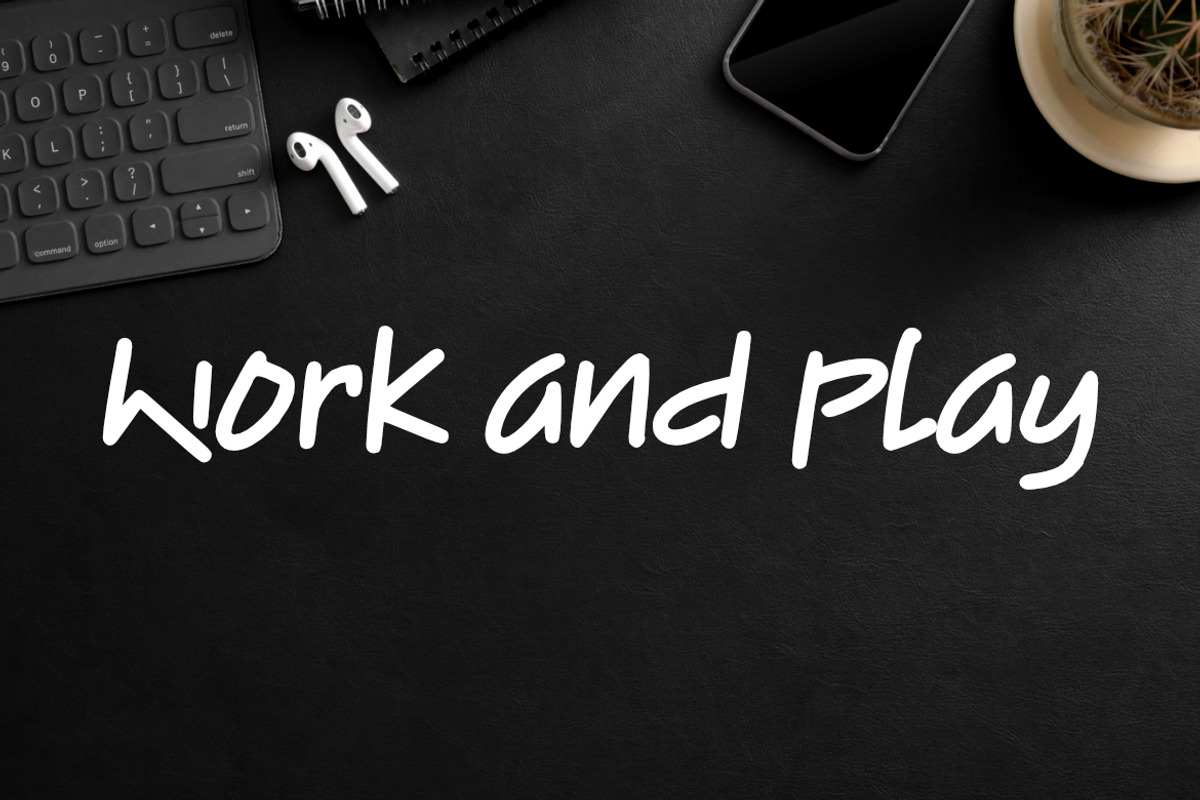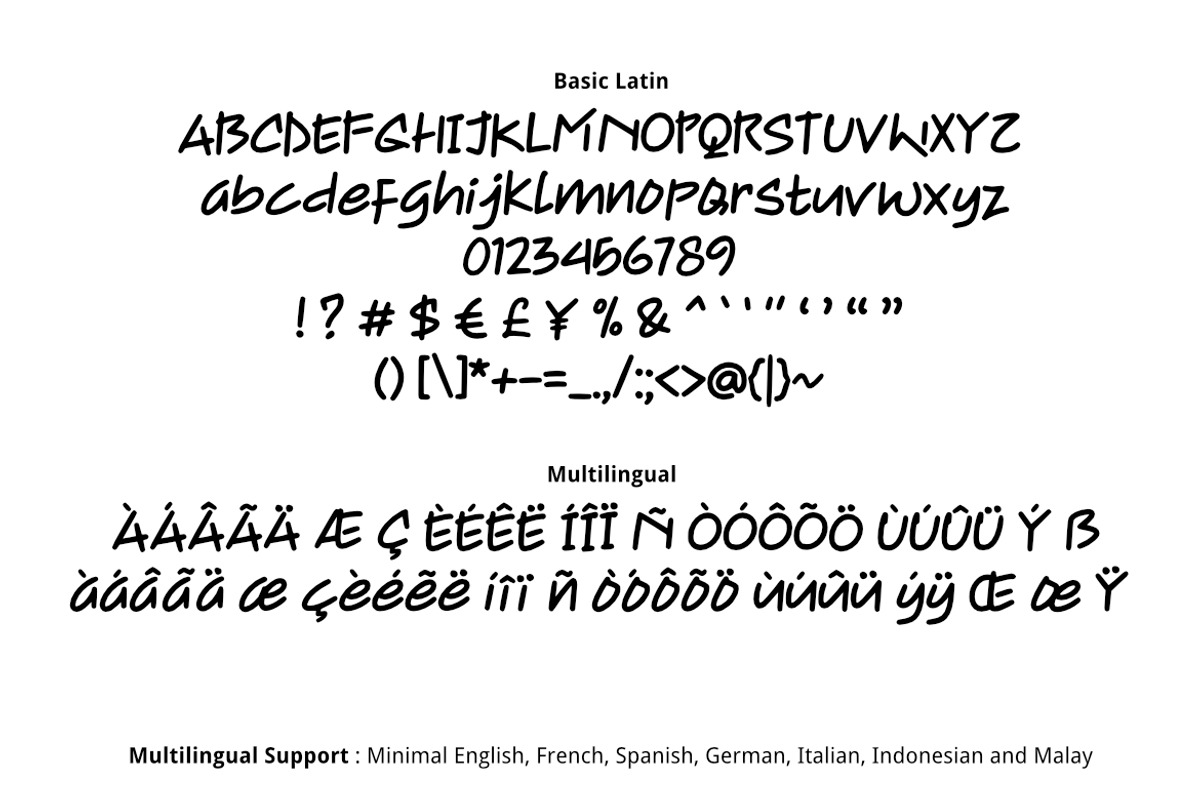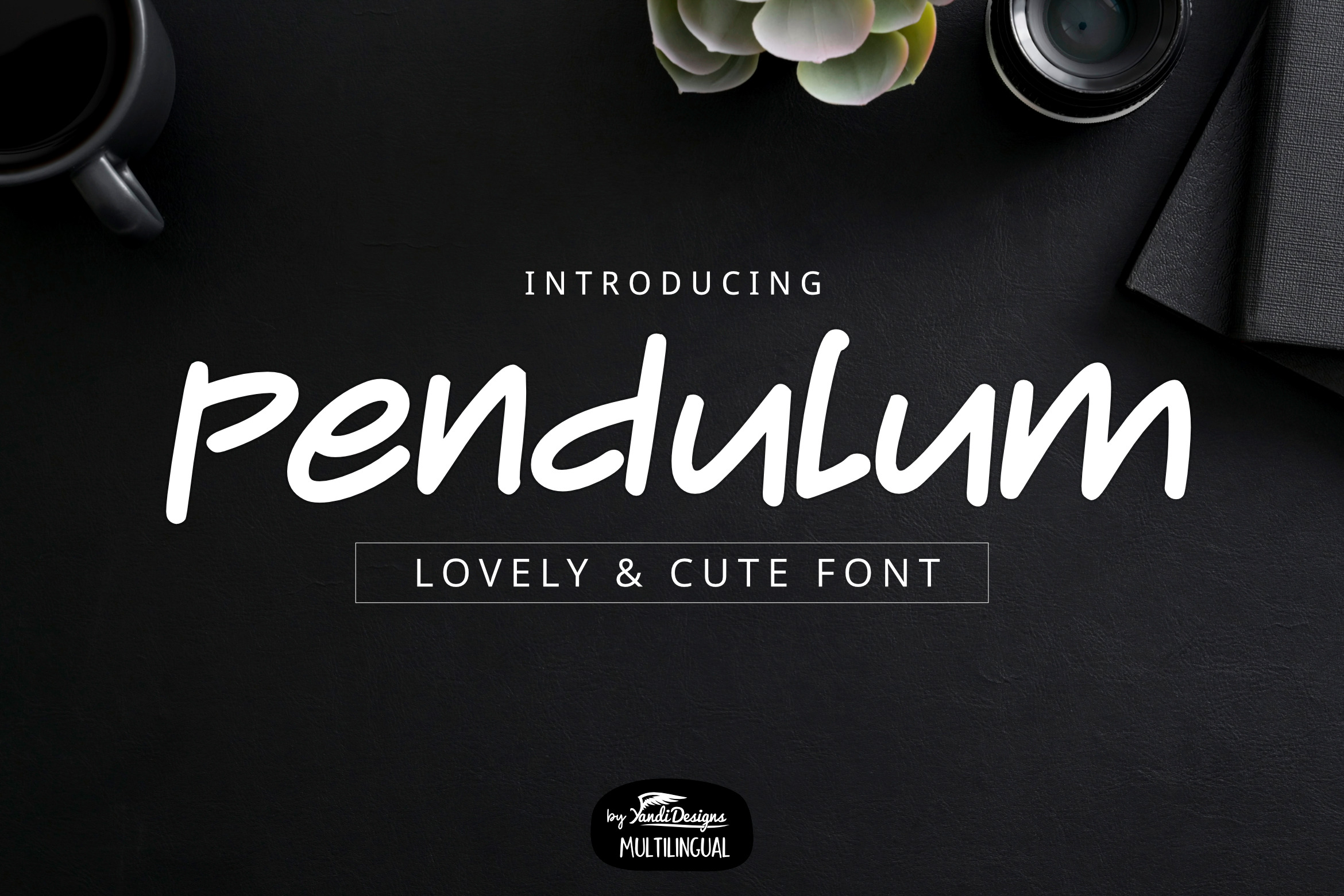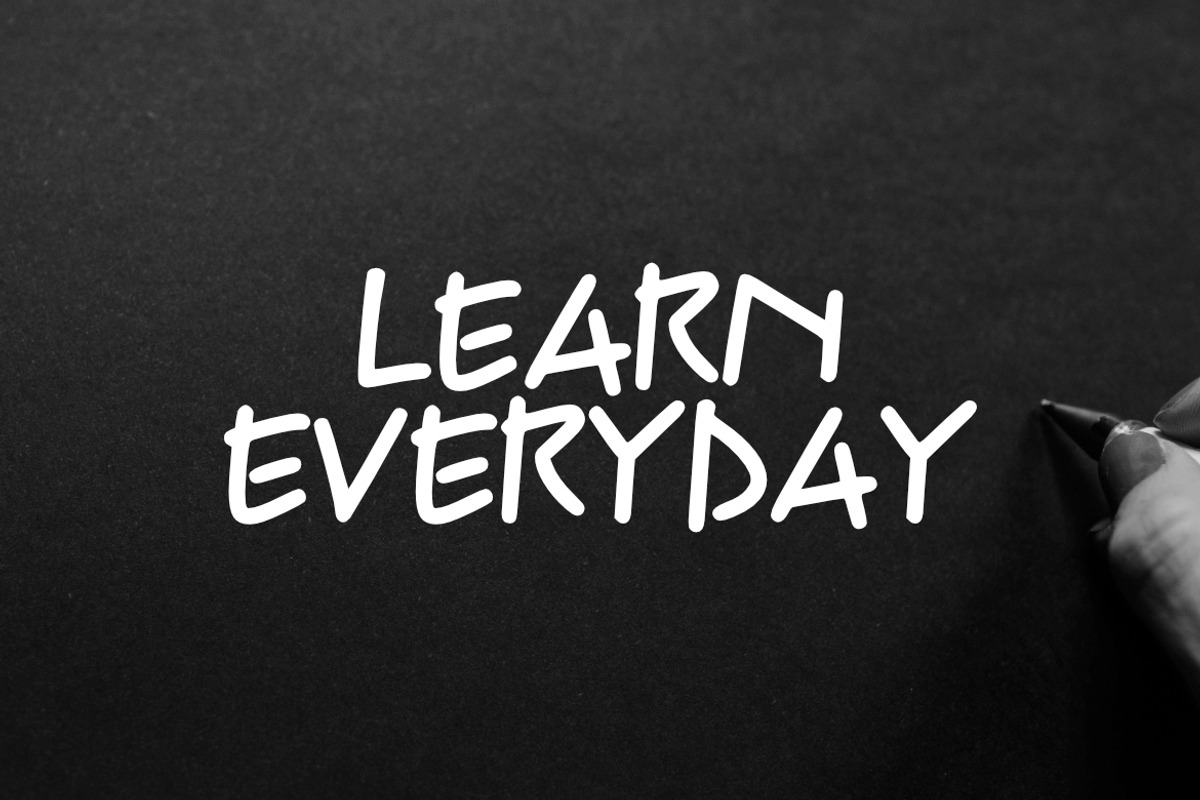
Pendulum Font
Pendulum Font is simple cute architect multipurpose handmade font, suitable for many project children book, quotes, logo , heading , title etc.